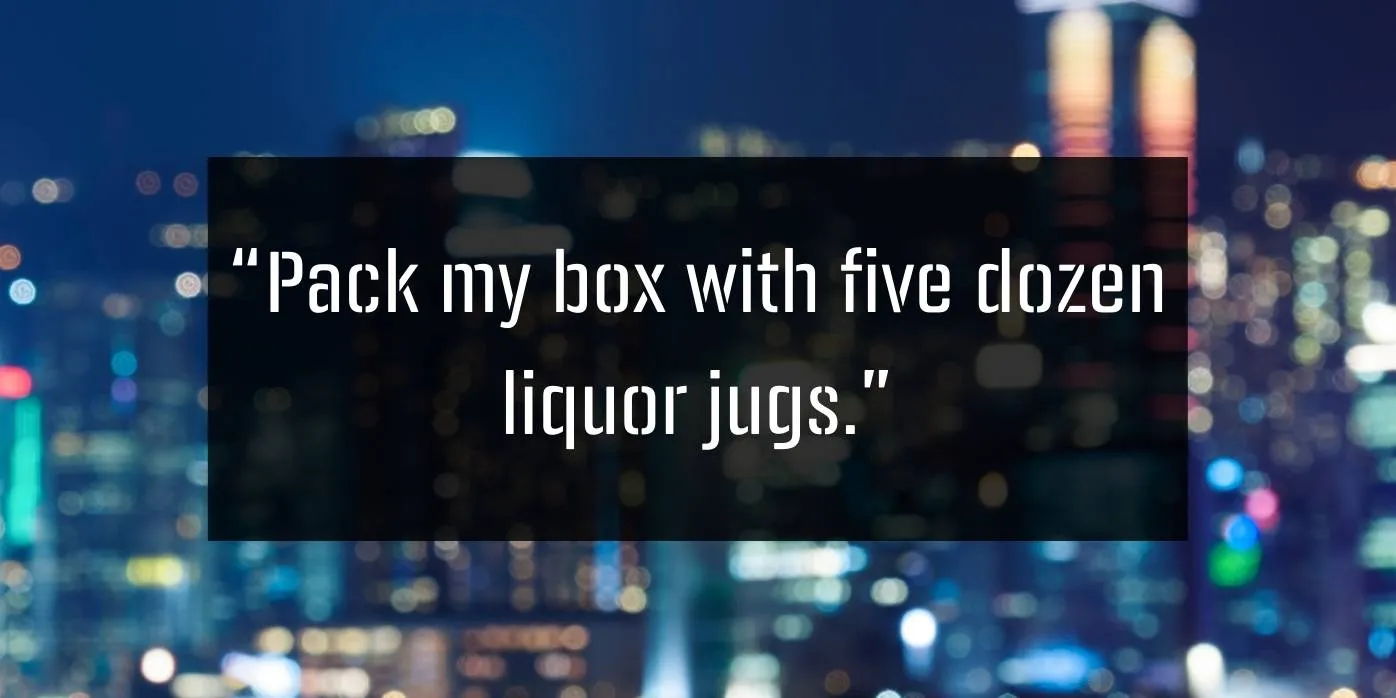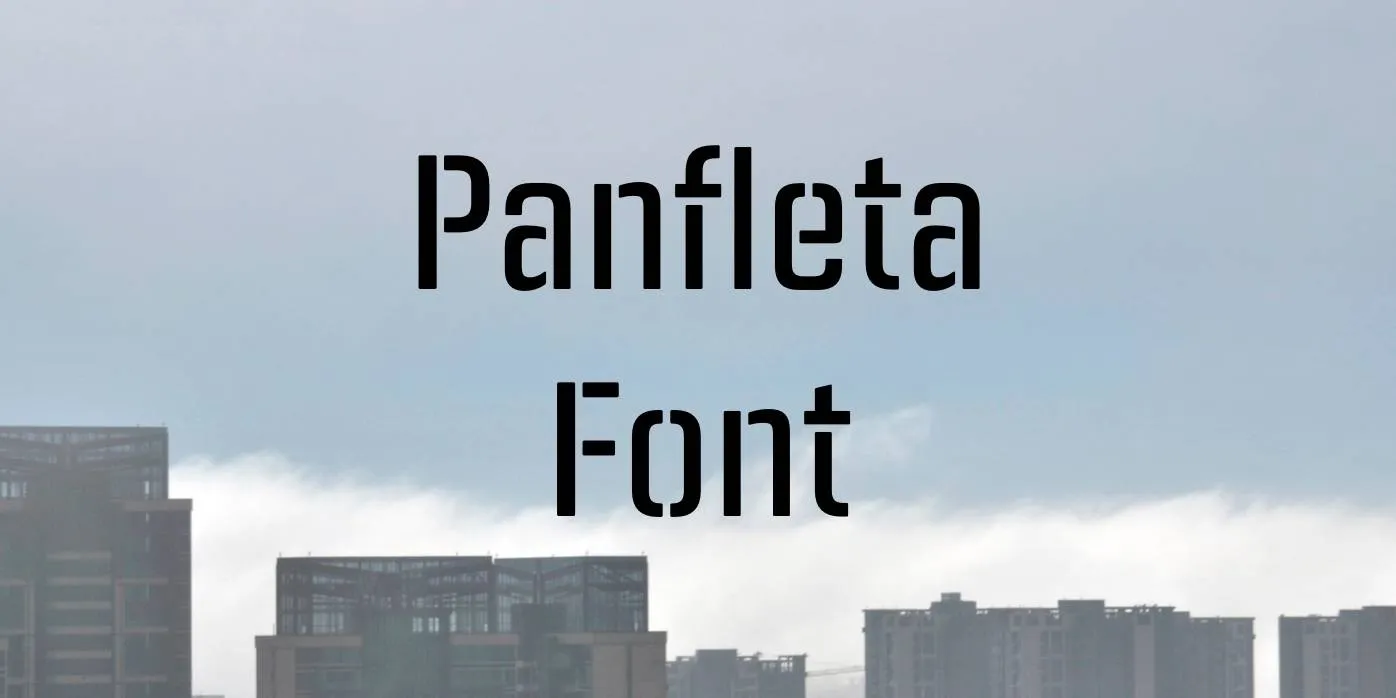
Panfleta Font
In this post, we present a new stylish typeface that goes by the name Panfleta Font. This typeface was designed by Defharo. It belongs to the display font family. The main aim of this typeface is to provide a unique and striking design for headlines, titles, and short paragraphs.
The Panfleta Font has a very stylish and readable design. It features a condensed sans-serif style. The letters are tall and thin. You will also use mexican font for different advanced designs.
This makes the font very legible even in small sizes. The overall look of the font is very modern and sleek. One of the best things about Panfleta Font is that it comes in 7 different styles – Regular, Bold, light, and others. It gives you the flexibility to create various types of designs with this font.
Both styles include all the basic Latin characters, numbers, and punctuation marks.